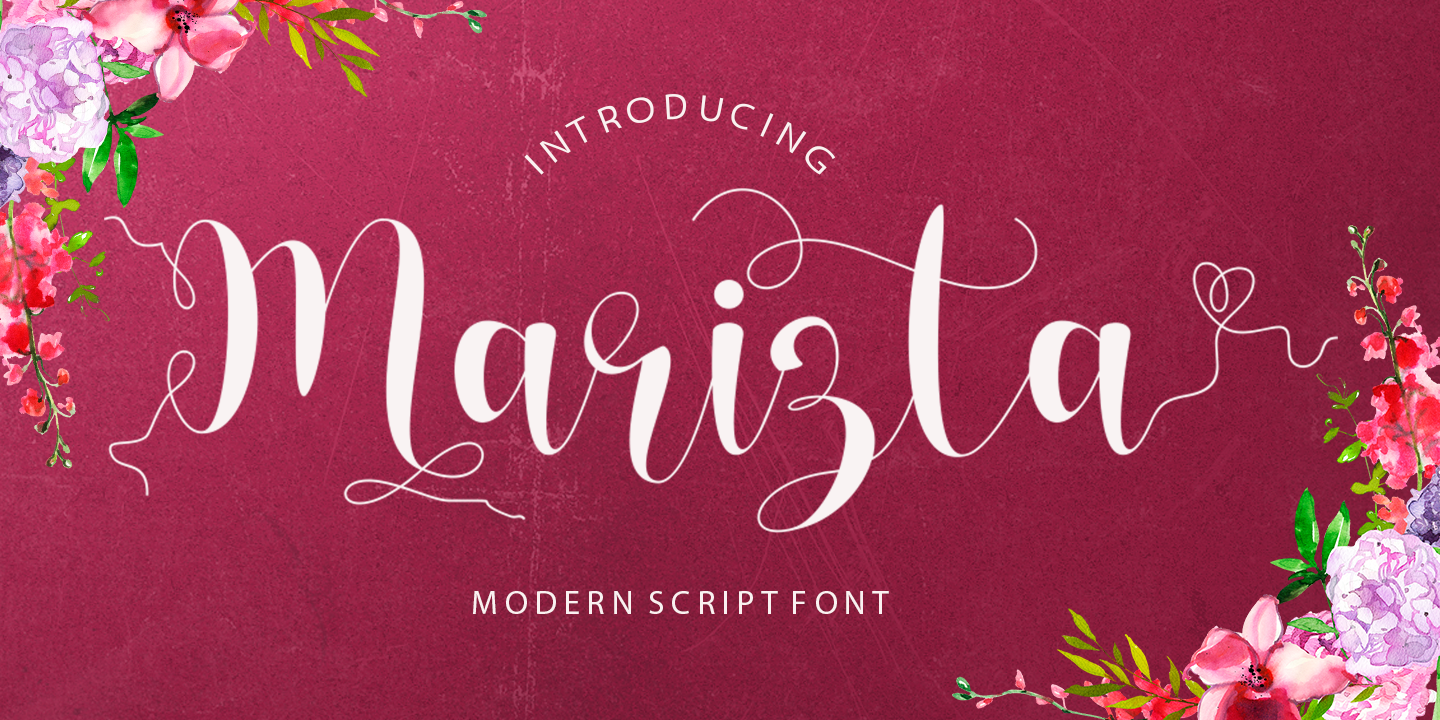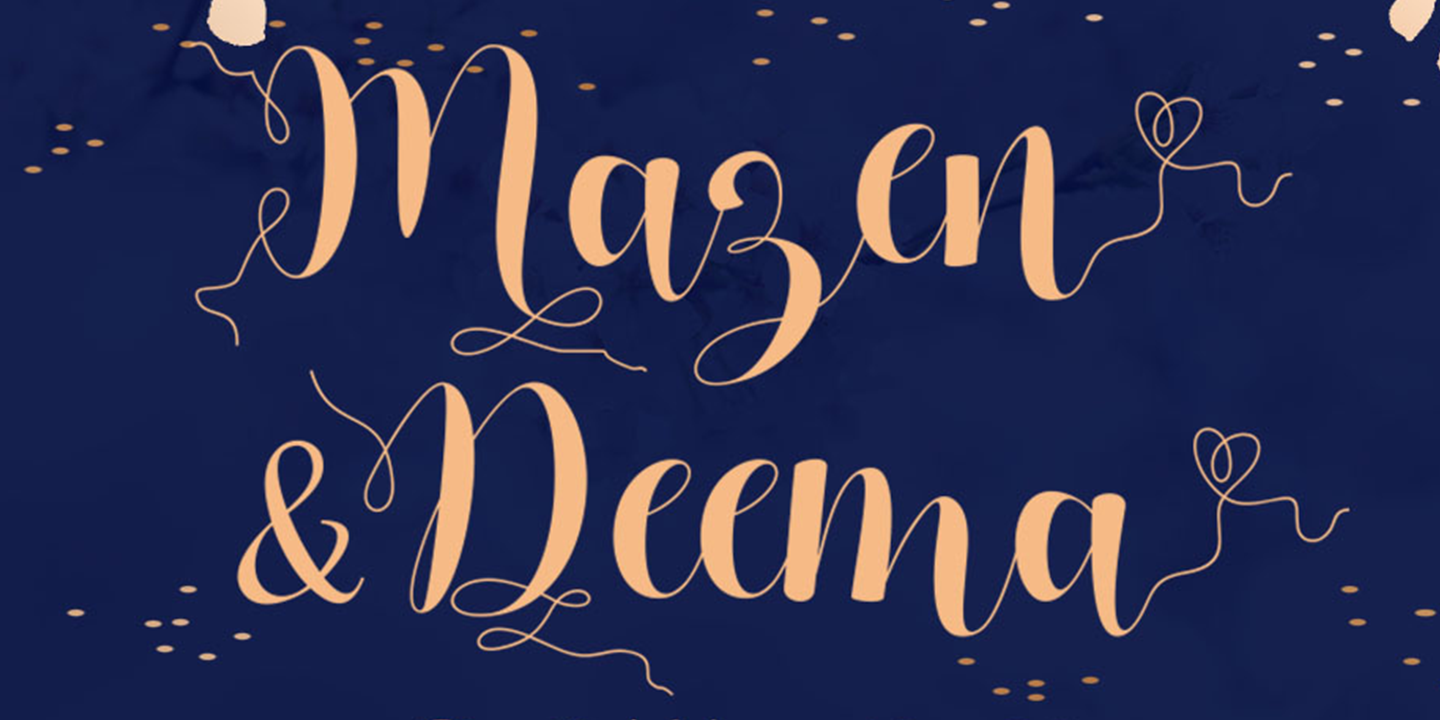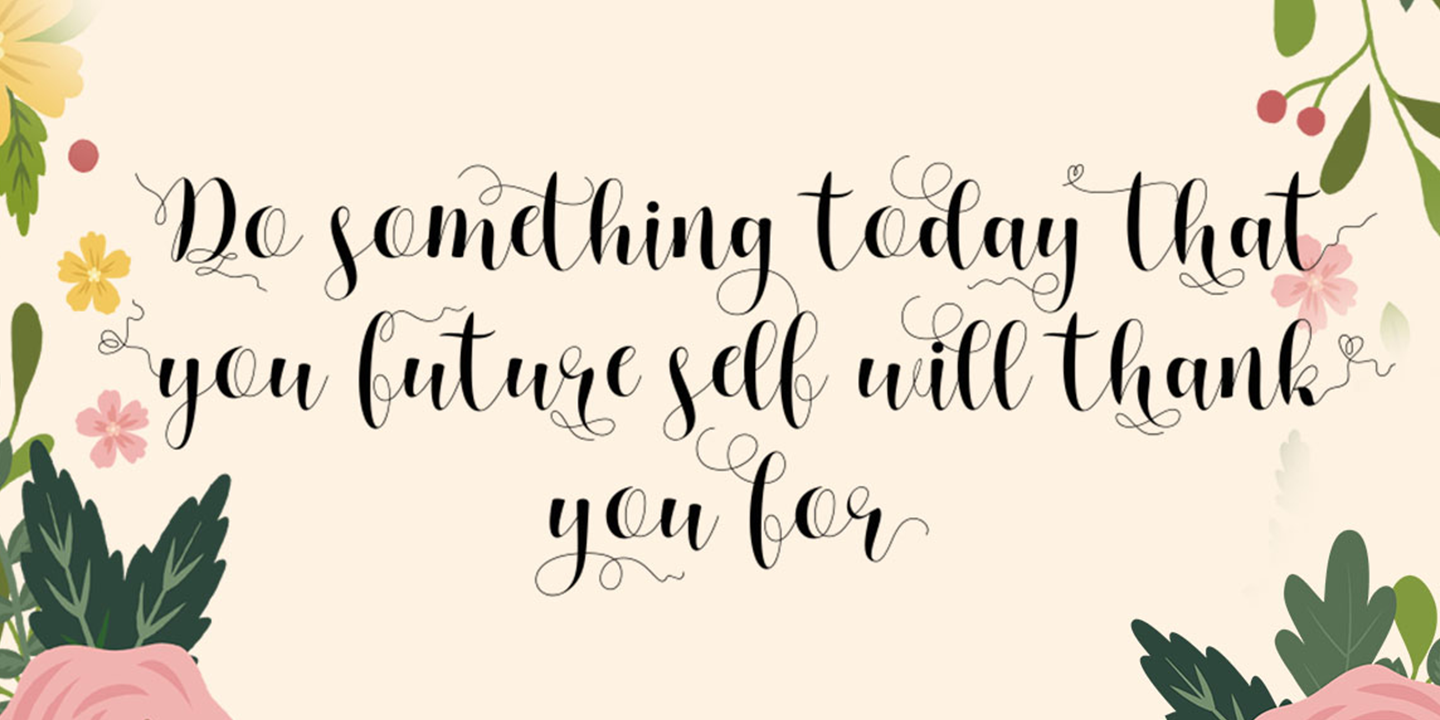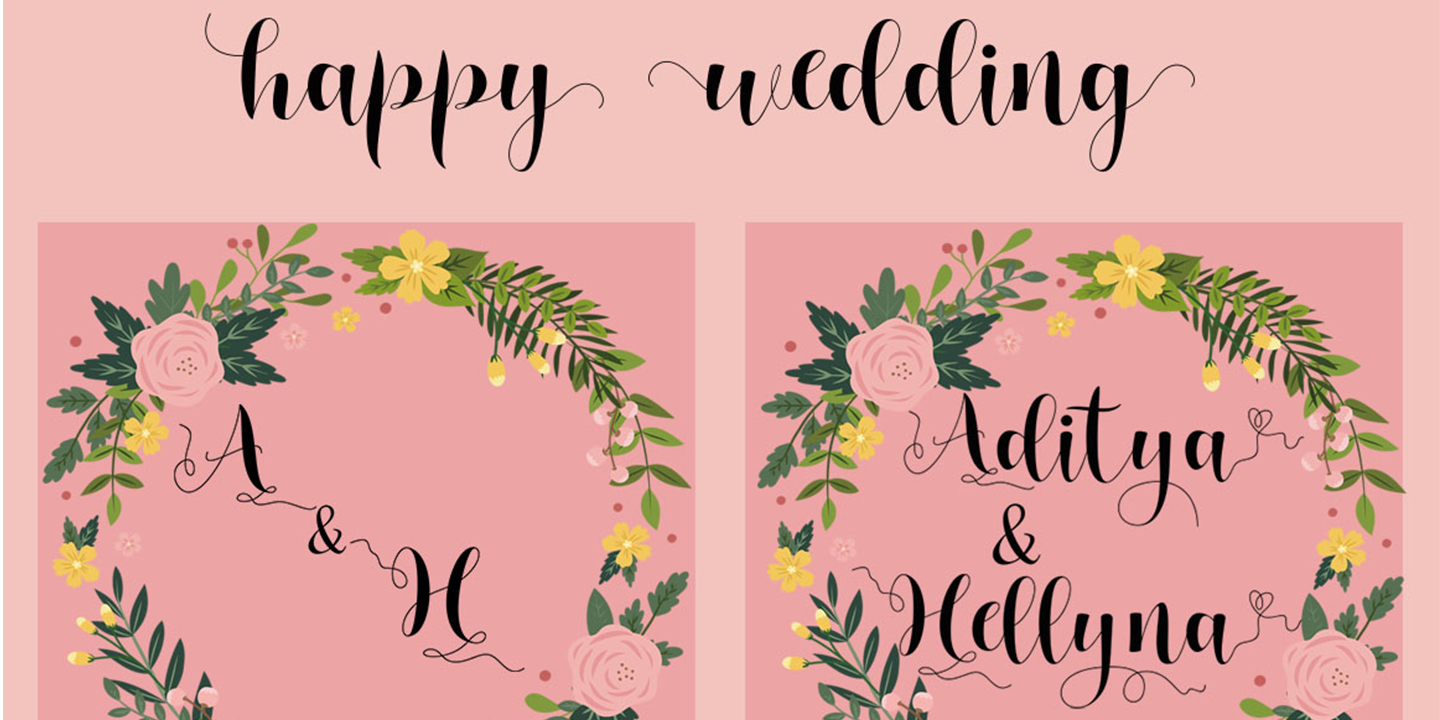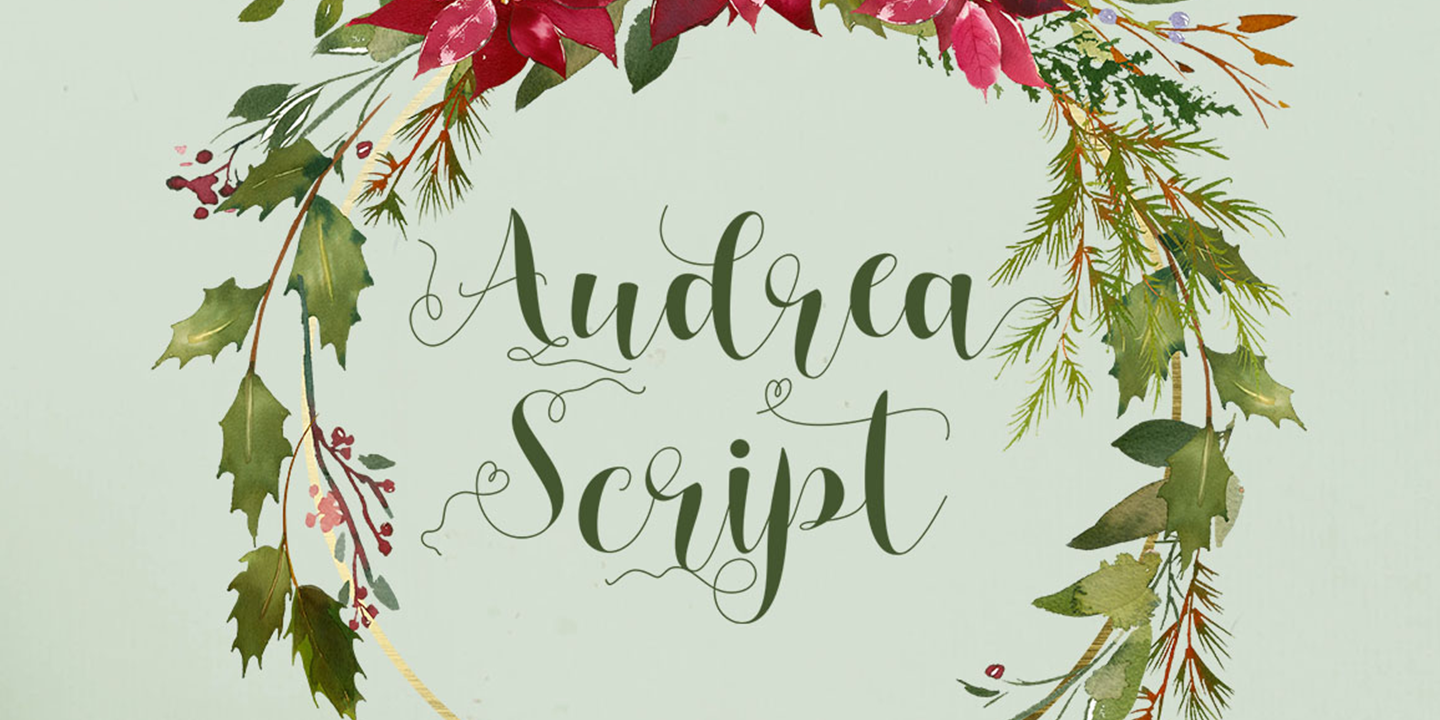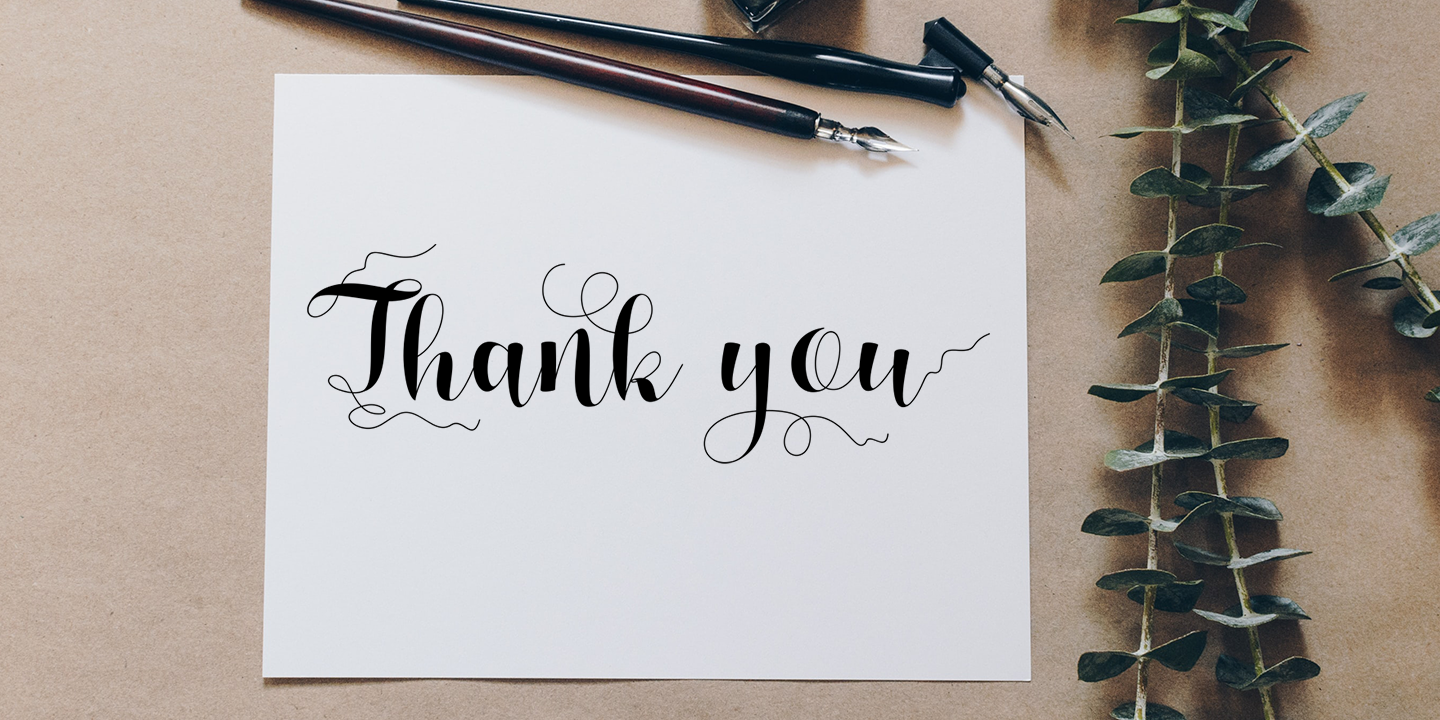
Marizta Script is a new modern script calligraphy font with an irregular baseline. Trendy and feminine style. Marizta Script looks lovely on wedding invitations, thank you cards, quotes, greeting cards, logos, business cards and more. Perfect for using in ink or watercolour. Including initial and terminal letters, alternates, ligatures and multi-lingual support.